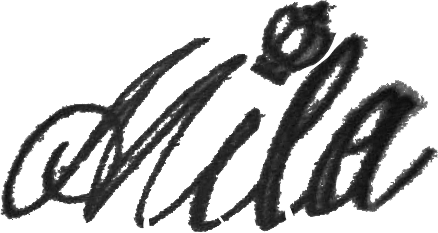
Can anyone help me find this font? It’s from a tattoo from a friend of mine and she wants to make another one with the same font. I did my best to somewhat up the contrast so you can see it more clearly. I’ve tried whatthefont but the image was too blurry for it to make something out of it and in order for me to use identifont I would have to know every single letter from the family. For all I know it’s an outlined calligraphy/script/handwritten italic font, but maybe anyone on here can tell me if there is any font out there that may look like this one. Anything would help.